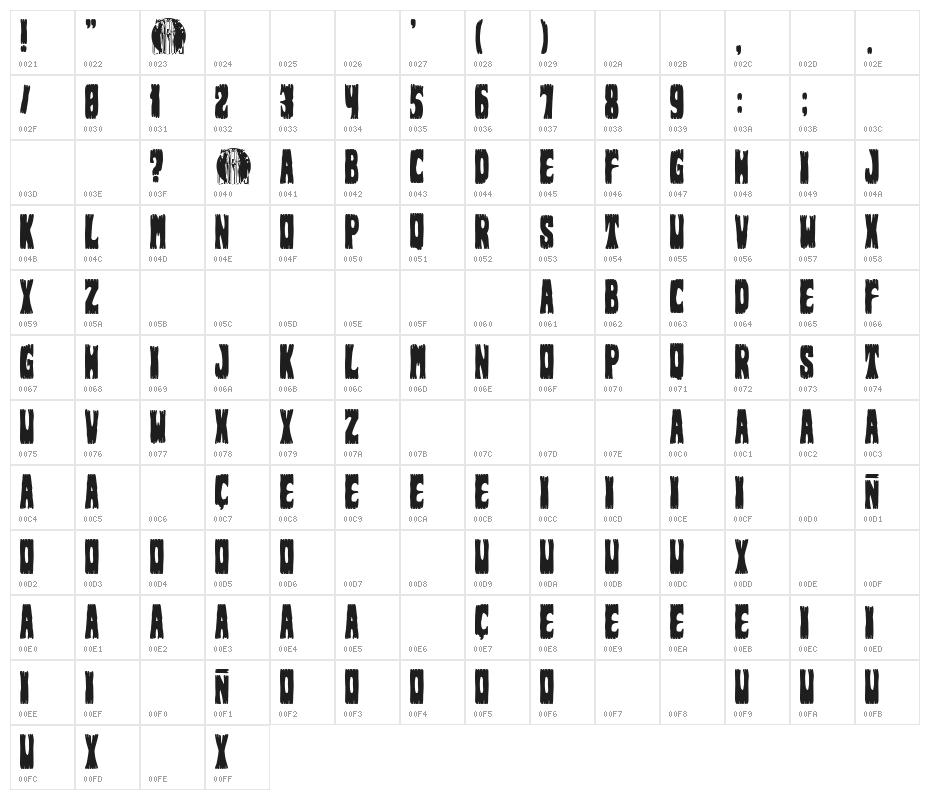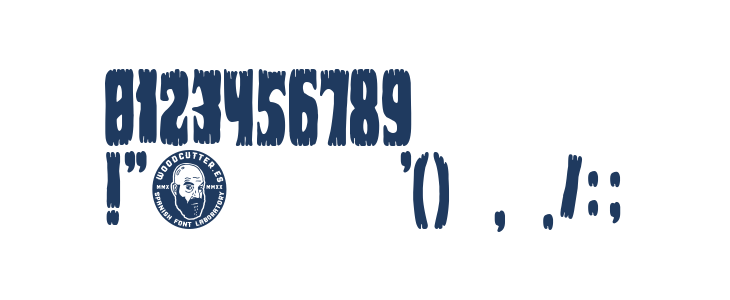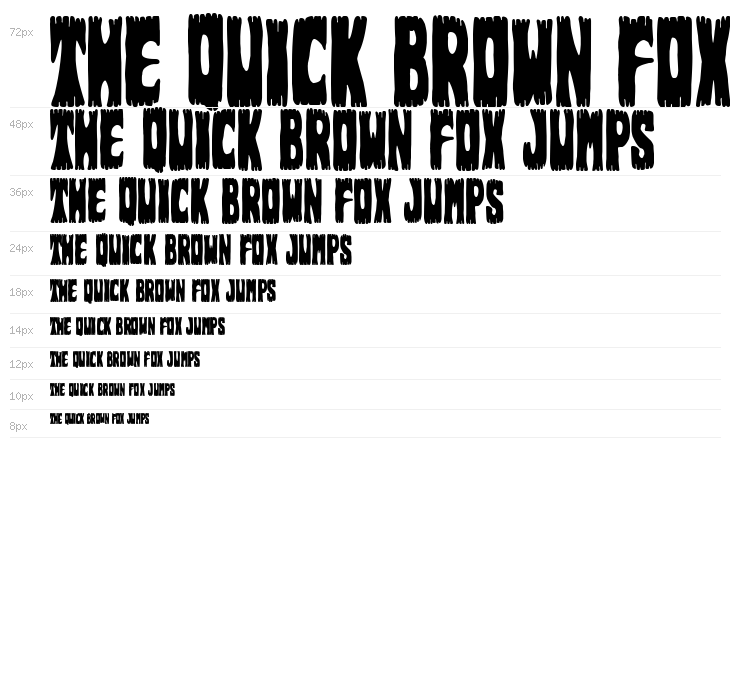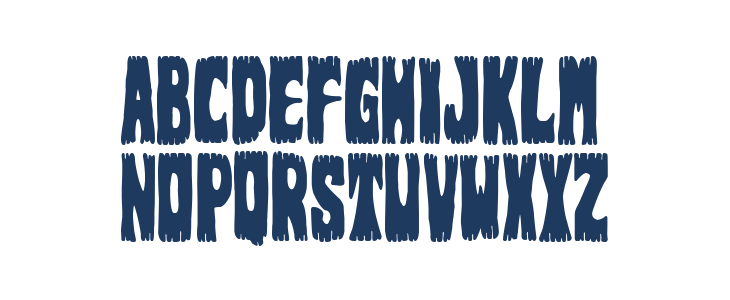
Los Fabulosos Adictos Font
Los Fabulosos Adictos Description
This font features a bold and dramatic style with a dripping effect that gives it a unique, eerie appearance. The uppercase and lowercase letters are designed with a heavy weight, creating a strong visual impact. The numbers and special characters maintain the same dripping motif, adding to the overall cohesive look. This font is ideal for projects that require a spooky or horror-themed aesthetic, such as Halloween posters, haunted house flyers, or themed event invitations. Its distinct style makes it stand out, capturing attention with its unconventional and artistic design.
| Proposed Projects | Ideal for Halloween posters, horror movie titles, haunted house flyers, and themed event invitations. |